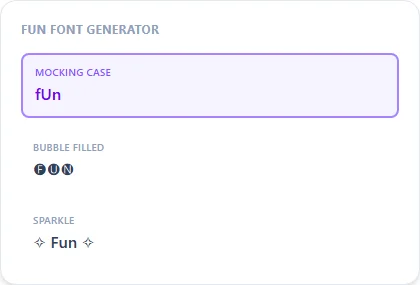
"Fun" text skews playful and a little silly rather than elegant. Think meme-style alternating case and bubble letters rather than anything formal.
Mocking Case is the most overtly playful option; Bubble Filled and Star Letters add a lighter, more casual decorative touch.
Fun Font Generator style examples: Mocking Case, Bubble Filled, Sparkle, rendered on the word "Fun"
Playful over polished
Where 'pretty' or 'stylish' text aims for elegance, 'fun' text is meant to look a little silly on purpose: meme-format case alternation, round bubble letters, and busy per-letter symbol wraps that draw attention through playfulness rather than refinement.
Best uses: jokes, replies, and casual bios
Mocking Case works best as a reply to something you're joking about. Bubble Filled and Star Letters suit a casual bio or a caption that wants a lighthearted tone rather than anything formal or serious.
What's a good fun style for a joking comment?
Mocking Case is built exactly for that. It's the aLtErNaTiNg CaSe meme format that reads as playfully sarcastic.
Is Star Letters the same as the Cute Stars wrapper on other pages?
No, Cute Stars wraps a star symbol around your whole text once; Star Letters wraps a star around every individual letter for a busier, more playful look.
Which style is least likely to look too silly for a normal bio?
Bubble Filled is the mildest option here — round and casual without going as far as Mocking Case or Star Letters.